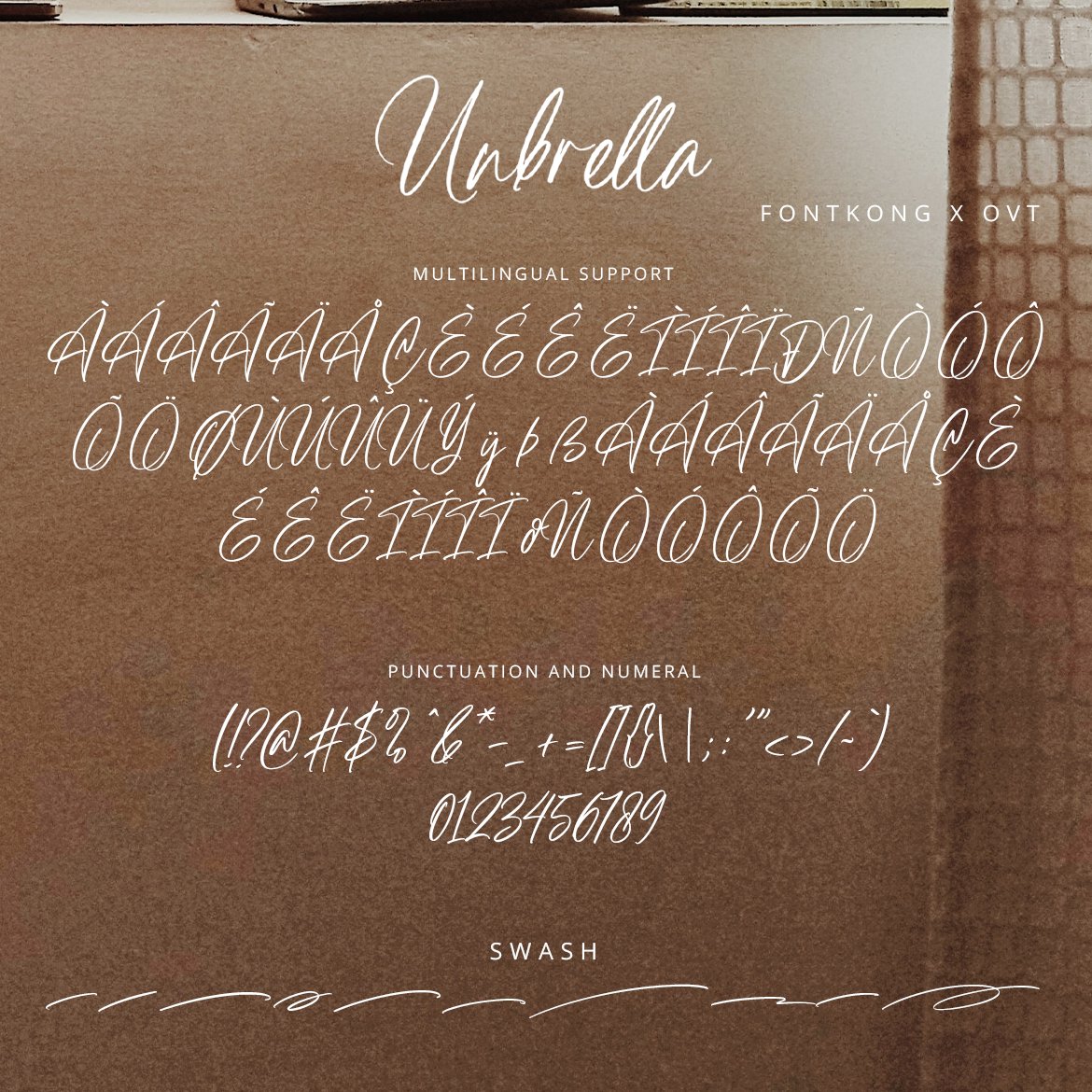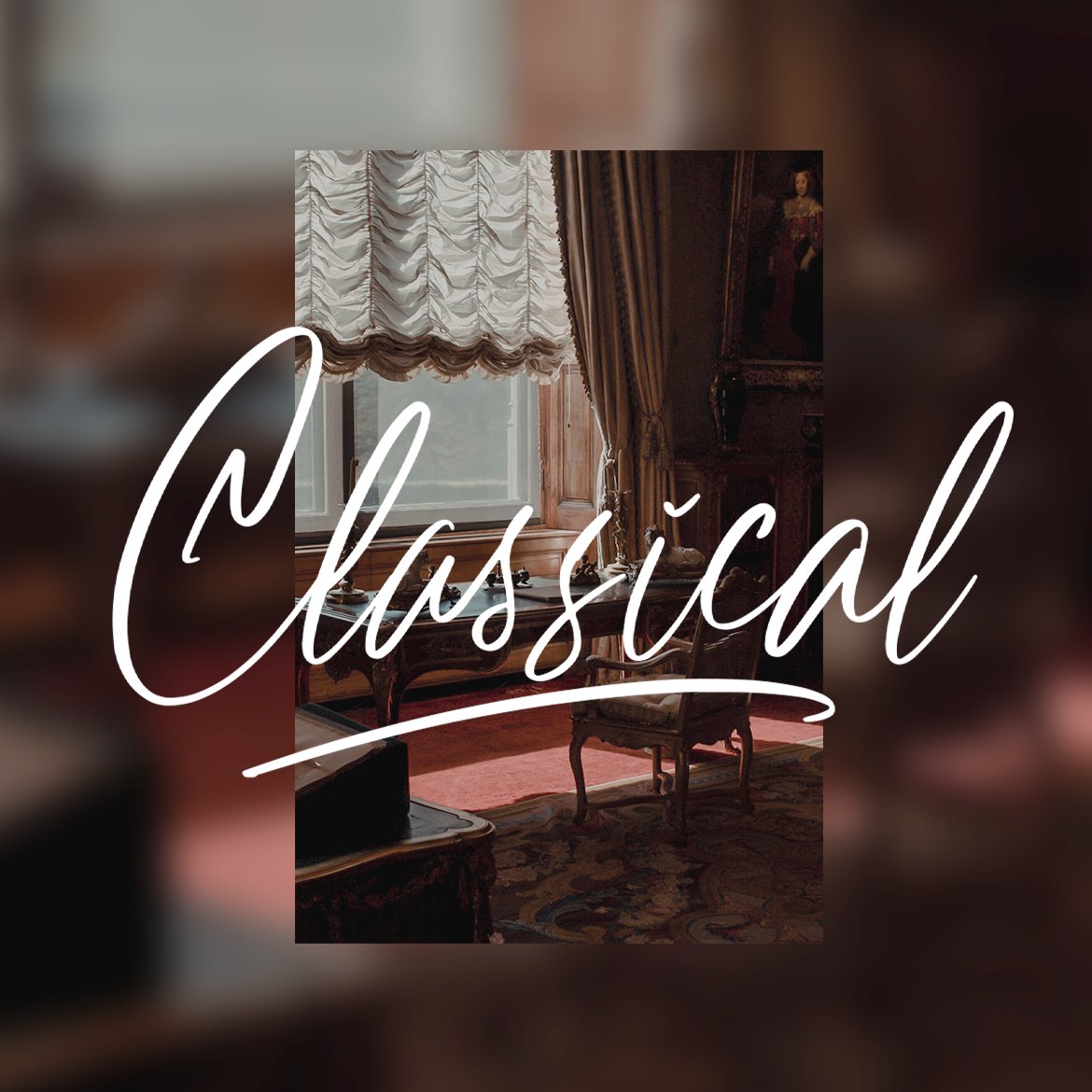
Unbrella – Handwritten Script Font
Ideal for wedding invitations, greeting cards, social media posts, and personal branding, Unbrella’s smooth curves and natural feel provide a warm and inviting aesthetic. Each character is meticulously crafted to reflect the spontaneity and uniqueness of true handwriting, ensuring your designs resonate with authenticity and elegance.